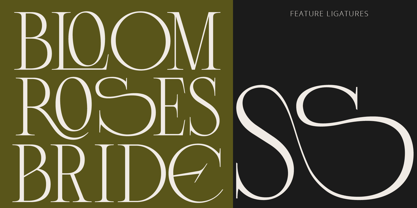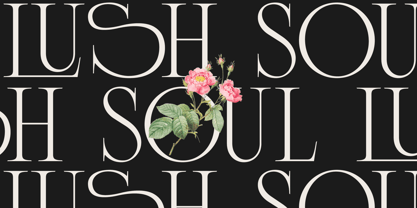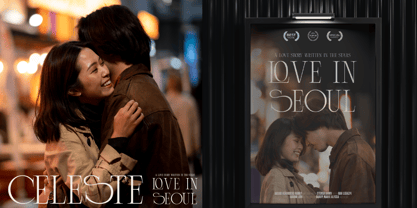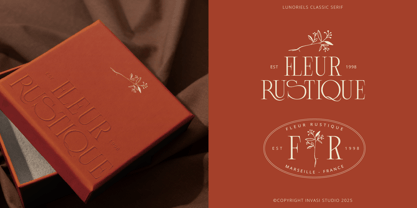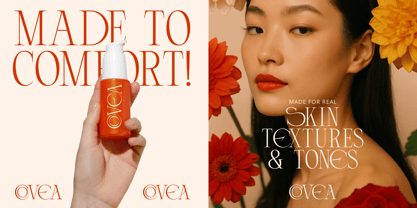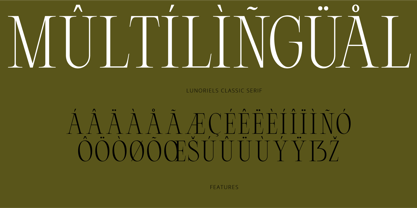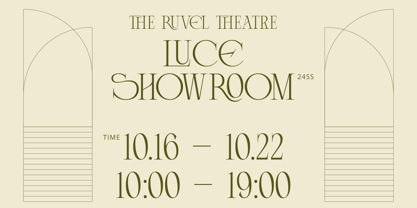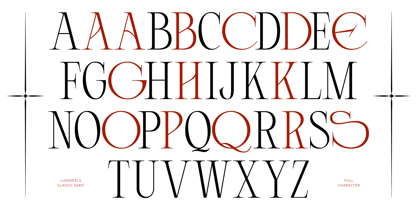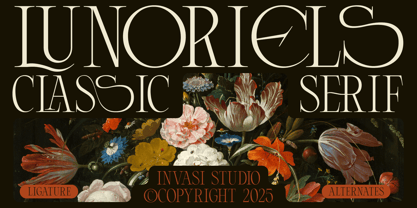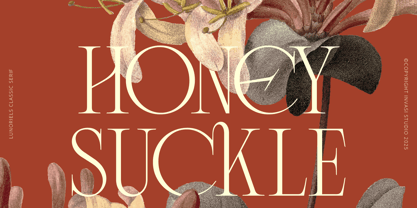
Lunoriels
The Lunoriels Font Family was designed by Gha Arizal and published by Invasi Studio. Lunoriels contains 1 styles. More about this family
Step into a world of timeless elegance with Lunoriels — a classic condensed serif font designed for sophistication. Inspired by vintage editorial layouts and old-world charm, Lunoriels blends modern refinement with artistic detail, making it perfect for romantic branding, fashion editorials, high-end packaging, wedding stationery, and cinematic title design.
What sets Lunoriels apart is its generous collection of over 50 unique ligatures and extended stylistic alternates, giving you endless ways to stylize your headlines and logotypes with grace and originality. The condensed structure allows for impactful use of space while preserving readability and allure. Each curve, stroke, and serif is carefully crafted to evoke a graceful, ornamental mood with subtle luxury.
Multilingual support is included to expand your reach across global designs, while its high contrast and thin strokes maintain elegance in both print and digital uses. Whether you’re designing upscale packaging, boutique branding, or editorial spreads, Lunoriels brings a refined flourish to any creative project.